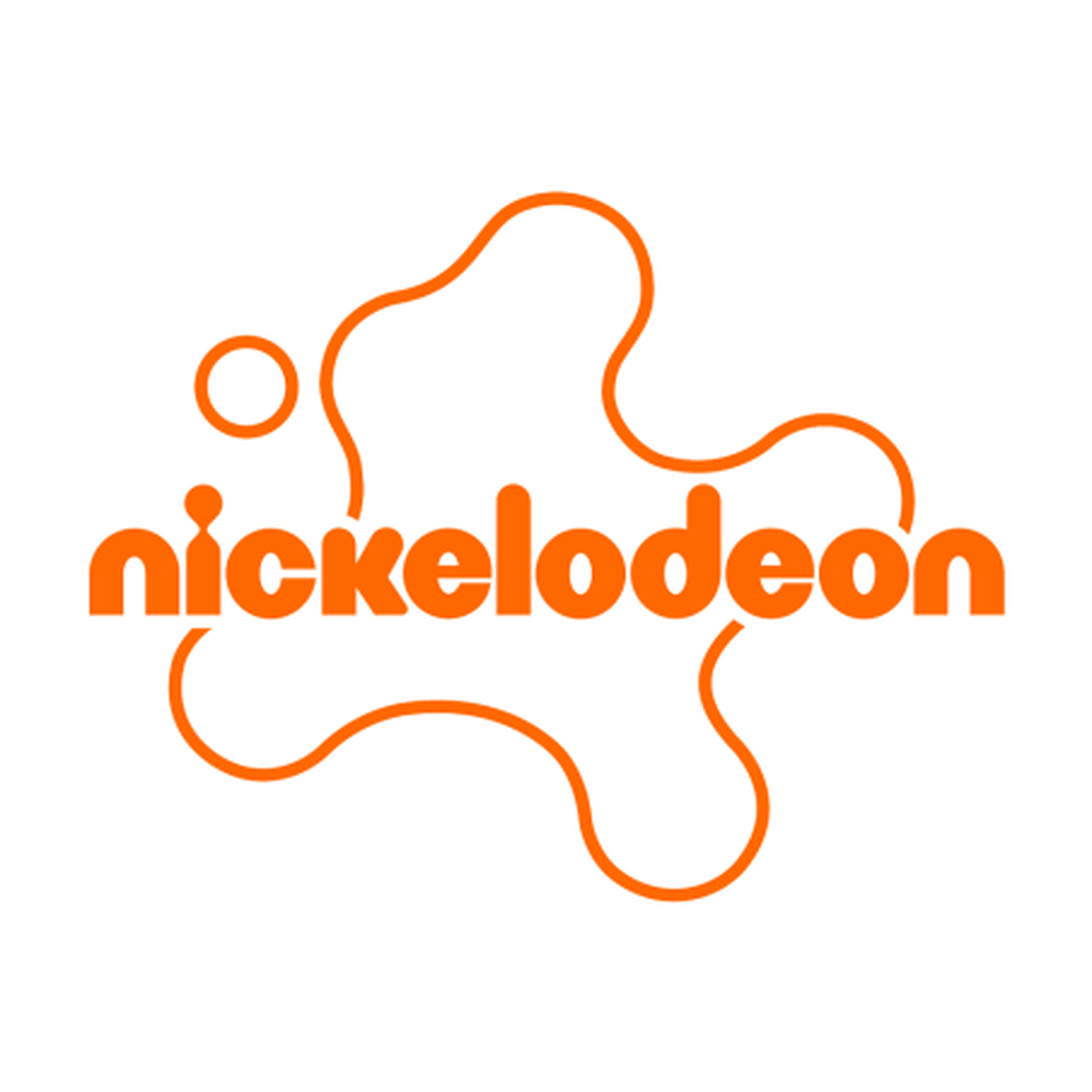
Nickelodeon font preview
About Nickelodeon
Nickelodeon launched in 1979 and became the defining children's television brand of the following decades, home to Rugrats, SpongeBob SquarePants, Avatar: The Last Airbender and the Kids' Choice Awards. Its identity has always been unusually confident for the category — built on a single saturated orange and a wordmark that has been stretched, splattered and poured into almost every shape imaginable.
What holds across all those variations is the lettering itself: extremely heavy, fully rounded, with counters squeezed almost shut by the weight of the strokes. It reads as friendly and a little unruly, which is exactly the register the network built its brand on. The famous orange splat was designed to be reshaped at will, and the type was drawn to survive that treatment — bold enough to stay legible however it gets distorted.
What font does Nickelodeon use?
Nickelodeon uses Nickelodeon's wordmark is custom lettering, not a released typeface. The style is an ultra-heavy rounded display face with bulbous strokes, fully rounded terminals and very tight counters.
Where this style works
Ultra-heavy rounded display faces are built for children's and family work: television and streaming idents, toy and confectionery packaging, party and event graphics, kids' apps and games, playful retail signage, and any layout that wants to feel loud and approachable at once. The rounded terminals keep the extreme weight from reading as aggressive.
What fonts are similar to the Nickelodeon logo?
Balloon Extra Bold is the classic reference for this kind of heavy rounded lettering. Among free options, Fredoka One and Baloo Bhaina get close to the weight and the rounded terminals.
Nickelodeon Font: Sigil Blade